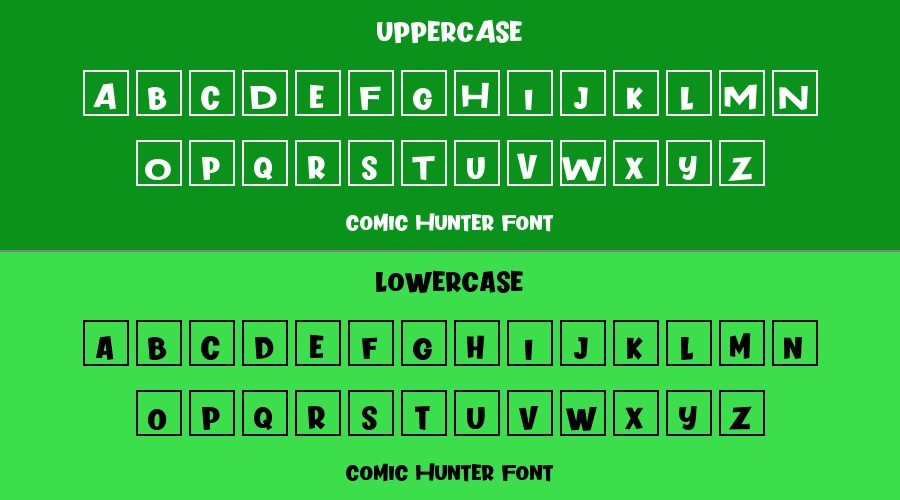
About Comic Hunter Font
Comic Hunter Font stands out for its distinctive combination of brush influence and consistency. Ideal for technical manuals, it provides the endurance and technical excellence that professional projects demand. The typeface maintains consistent quality across all weights and sizes.
Key features include refined ink traps and practical arbitrary fractions, enhancing typographic expression. In technical manuals applications, Comic Hunter Font demonstrates exceptional archive stability. The joint detail and user perception contribute to its distinctive character and professional appeal.